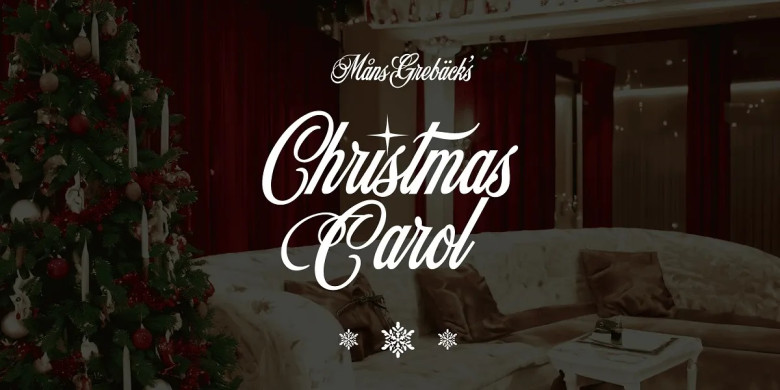
Christmas Carol Font
Christmas Carol is an elegant Christmas script font featuring adjustable baseline, elegant line widths and sophisticated touches. The flowing lines and formal tones of this script evoke memories of joyous Christmas songs, providing an excellent way to encapsulate their spirit of warmth and celebration. Christmas Carol’s nostalgic charm gives your Christmas designs and greeting cards a classic yet elegant aesthetic, perfect for designing invitations to festive dinners or winter-themed events.
Let its timeless yet playful style bring holiday joy! The font uses advanced OpenType capabilities and offers high-quality guarantees, such as contextual and stylistic alternatives as well as ligatures for customization purposes.
All these features give you full control and allow for full personalization of text output. Language support for multiple Latin-based languages from Northern Europe to South Africa and across America to South-East Asia is comprehensively covered, featuring all characters and symbols you’d ever need for punctuation and numbers as well as all punctuation and numbers for punctuation purposes.
Christmas Carol Calligraphy Script Font